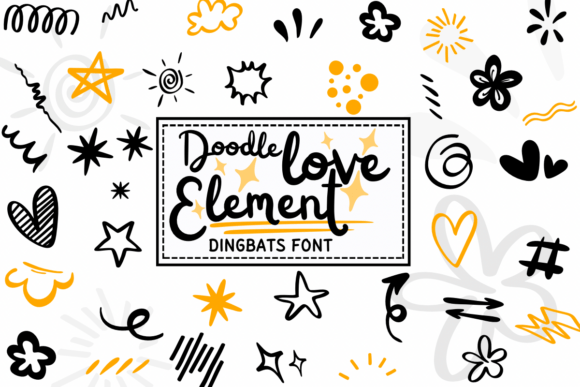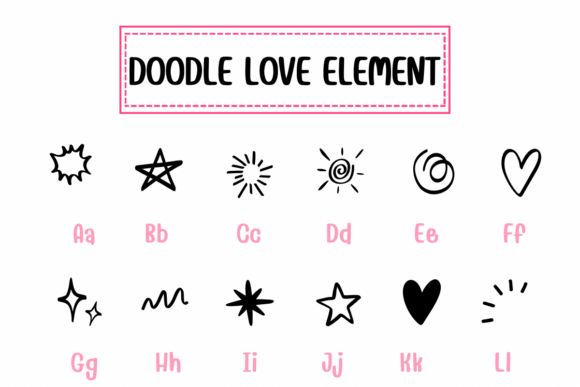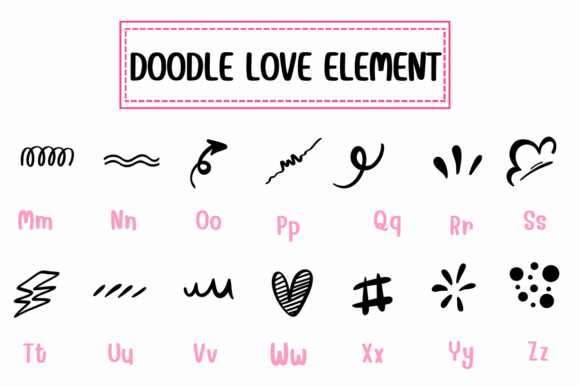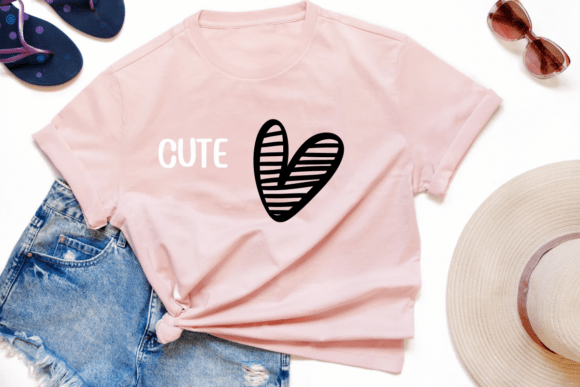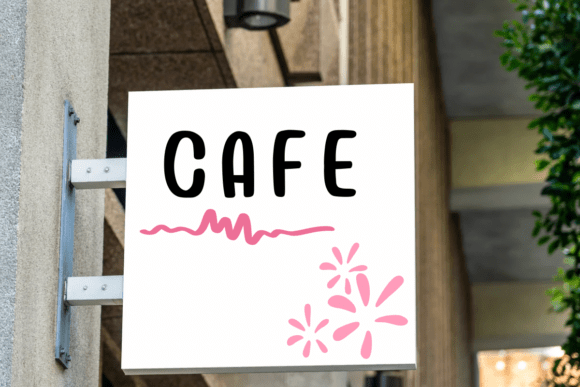
Doodle Love Element Font
Doodle Love Element is a fun and spontaneous dingbat font filled with hand-drawn love-themed doodles like hearts, stars, sparkles, arrows, and swirls. Ideal for greeting cards, social media posts, planners, or anything that needs a playful, romantic touch.